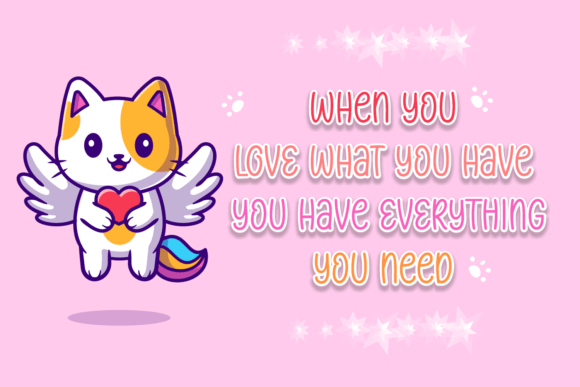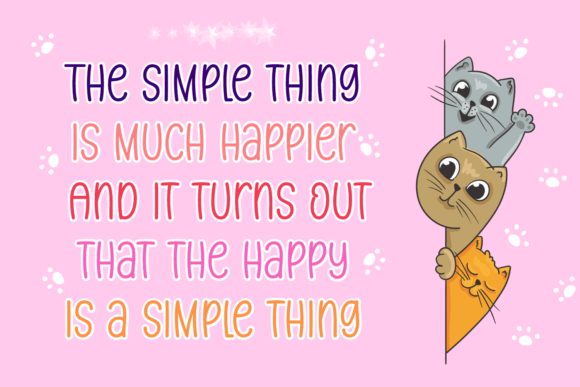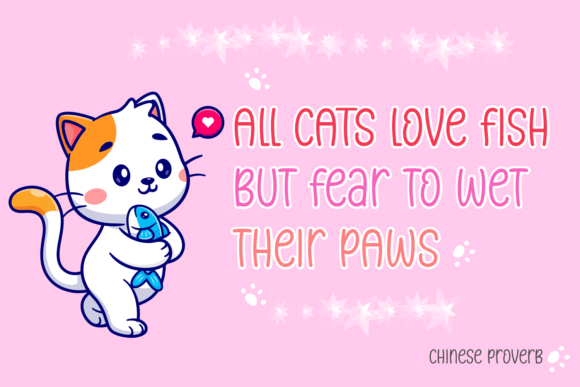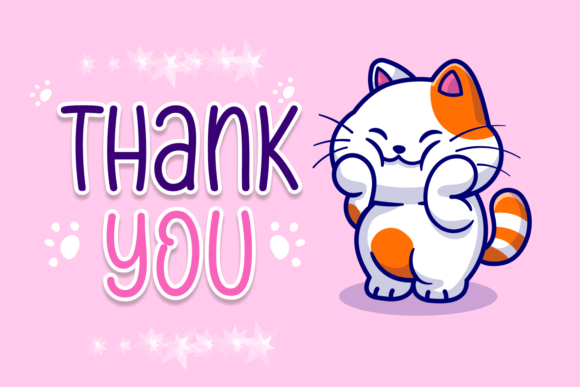
Introduction to Hello Popow Font
Have you ever been working on a creative project, brainstorming ideas, and then suddenly, you’re stuck? Maybe you’re designing a birthday card for a loved one, or crafting a presentation for a big meeting. Whatever it is, you need something special to make it stand out. That’s where the Hello Popow Font comes in – a beautiful, handwritten font that’s sure to add a touch of warmth and personality to any design.
With its high-quality design and transparent background, this font is a valuable resource for designers looking to elevate their creative projects. Whether you’re a seasoned pro or just starting out, Hello Popow Font is a free download that’s perfect for any occasion. Its versatility makes it a go-to choice for everything from digital design to crafting and making greeting cards.
- High-quality, unique design resource perfect for creative projects
- Features a transparent background, allowing for seamless integration into various design elements
- Unique characteristics include bold, playful, and modern elements, ideal for branding, advertising, and digital art
Honest Review: Hello Popow Font
As a designer, I’m always on the lookout for high-quality design resources to elevate my creative projects. The Hello Popow Font caught my attention, and I decided to give it a try. Overall, I’m impressed with this font’s unique features and versatility.
- ✨ Unique design style that adds a touch of elegance to any project
- ✨ Smooth and clean lines that make it perfect for body text and headings
- ✨ Transparent background option that allows for seamless integration with any design element
- ⚠️ Limited character set, which may not be suitable for complex or technical content
- ⚠️ Some users may find the font too ornate or distracting, depending on their personal taste
Overall, I think the Hello Popow Font is a solid addition to any designer’s toolkit. While it may not be perfect for every project, its unique style and high-quality design make it a valuable resource for creative professionals.
As a free download, it’s hard to complain about the price, and the transparent background option makes it easy to integrate into any design. If you’re looking for a font that will add a touch of sophistication to your next project, the Hello Popow Font is definitely worth checking out.
Hello Popow Font
Hello Popow Font is a high-quality design resource perfect for creative projects. This font features a transparent background, making it versatile for use in various applications.
Tips for Getting the Most Out of Hello Popow Font
To get the most out of the Hello Popow Font, use it in combination with other design elements, such as images or shapes. Experiment with different font sizes, colors, and styles to create unique and eye-catching designs.
Hello Popow Font is perfect for various creative projects, including:
- Presentations and slideshows
- Logos and branding
- Typography and custom graphics
Alternatives to Hello Popow Font
Pacifica Font is a beautiful, elegant script font perfect for creative projects that require a touch of sophistication. It’s ideal for wedding invitations, quotes, and other design elements that need a high-quality, elegant look. Pacifico Font is available for free download and can be used with a transparent background, making it a versatile design resource.
Compared to Hello Popow Font, Pacifico Font has a more refined and sophisticated look, making it suitable for more formal designs. It lacks the playful, handwritten feel of Hello Popow Font but excels in providing a high-end, elegant look for creative projects.
Great Vibes Font is a modern, elegant script font that’s perfect for creative projects that require a high-quality, stylish look. It’s ideal for wedding invitations, quotes, and other design elements that need a touch of sophistication. Great Vibes Font is available for free download and can be used with a transparent background, making it a versatile design resource.